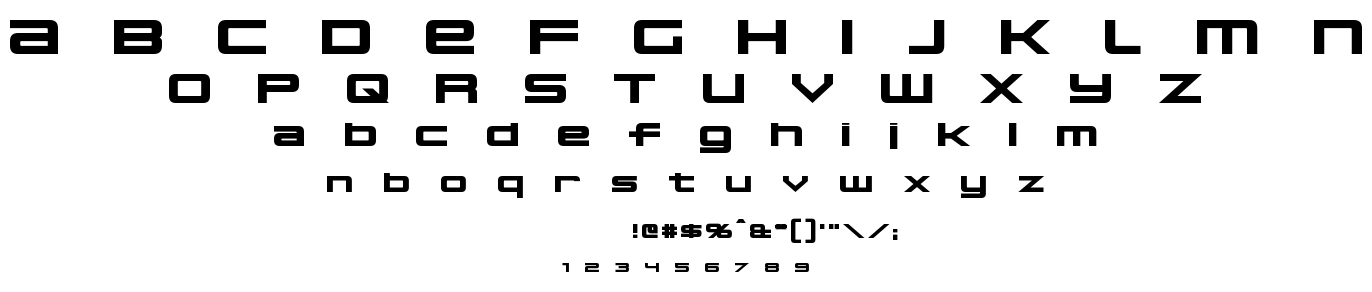
Based on the character lettering for Hasbro’s Transformers: Prime figures. (Note, I’ll probably need to update this one once the Vehicons and Skyquake come out.. but it’s otherwise accurate to the packaging I’ve found.)